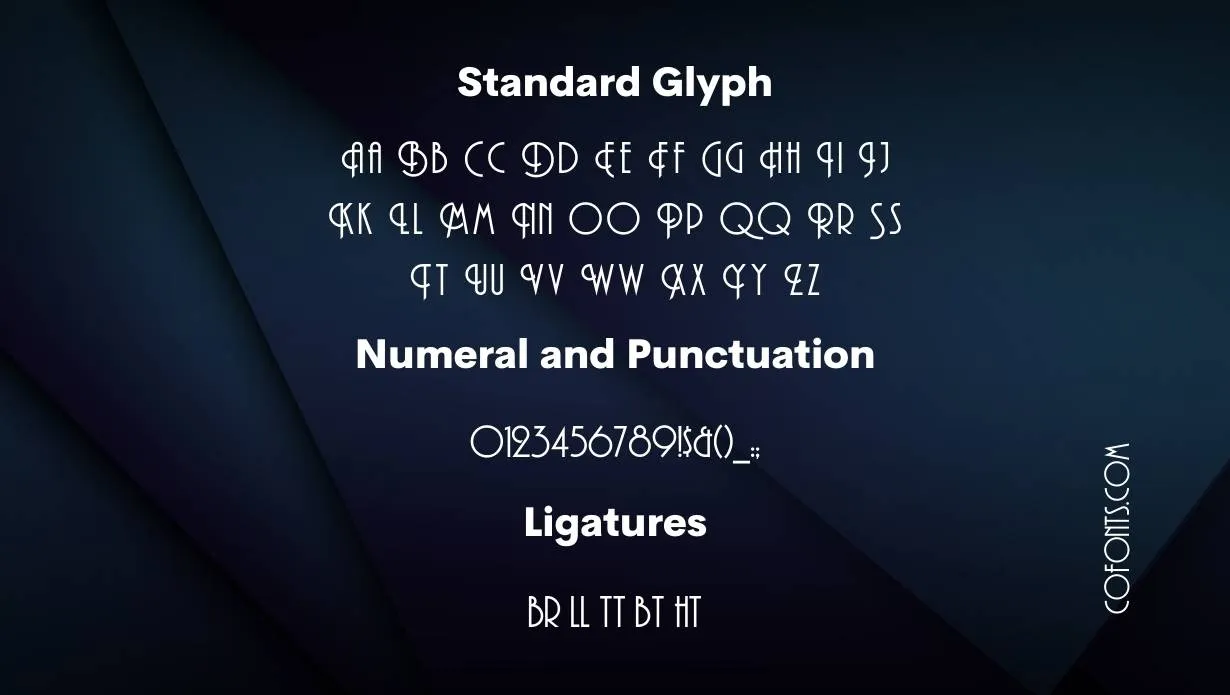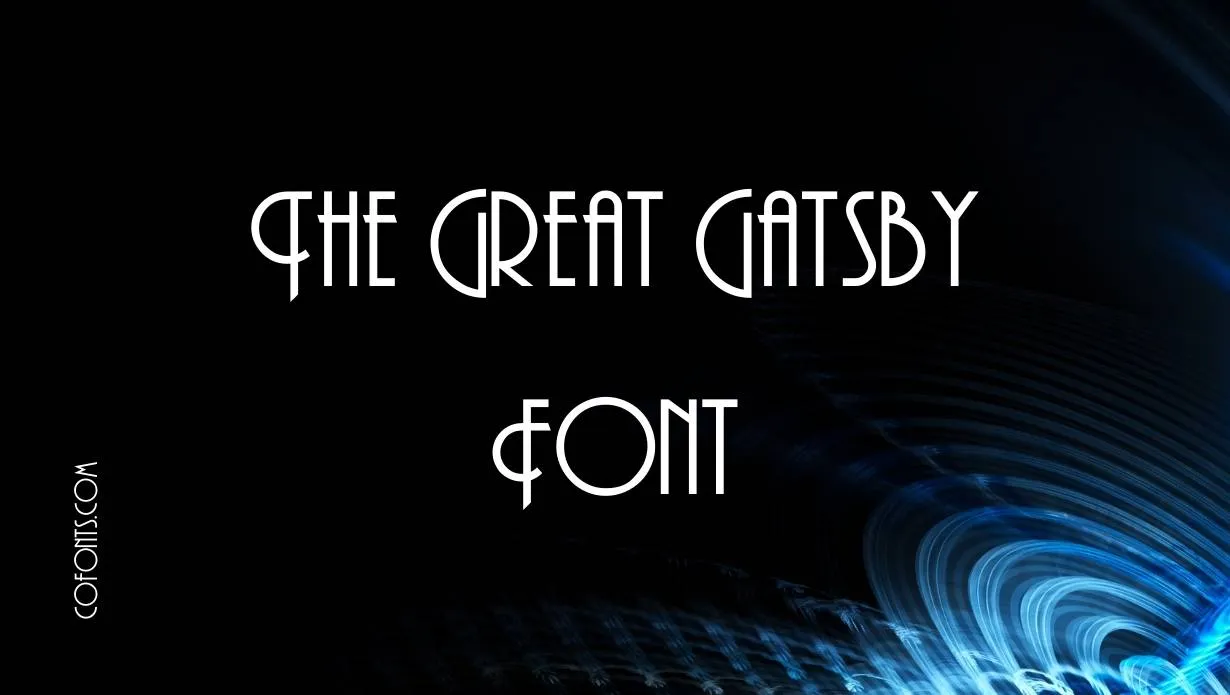
It too incorporates a set of optional cords, which includes its versatility. This typeface contains in-vogue glyphs and characters the design may be an incredible choice for any extent that needs a touch of class. Get it and include a stylish touch to the following extent. The Great Gatsby Font is created by Casady and Greene.
You’ll do your coursework introductions utilizing this typeface and make it more appealing to your instructors and classmates. The design can be used to create interesting covers, shop names, logos, and logos for shops, stores, and websites. This font is very close to the sansation font.
As well as branding projects, houseware designs, packaging, or even simply as an attractive text overlay on any background image, the typeface is suitable for all types of projects. The typeface also can create stunning logos and branding materials.
Usage of The Great Gatsby Font
This typeface moreover has both lowercase characters and capitalized characters, as well as a huge number of ligatures. This typeface helps creators when designing fields. You can use this typeface to create remarkable and eye-catching designs.
It is also appropriate for the creation of long and short paragraphs. Also appropriate for artwork and banner design. There are smaller capital letters in it. Using this typeface in combination with many other typefaces can truly assist produce an original and eye-catching style. You can easily compare this font with the noto sans font.
Projects that involve the font include emails and texts, webpages, emblems, and also more. It’s ideal for giving your work uniqueness as well as making it differentiate itself from other projects. Due to its eye-catching design, this typeface is commonly used in a lot of stylish projects. For developing attractive webpages, you can import this typeface into a CSS file.
Can I use Great Gatsby Font for poster designs?
There is no problem using this logo font for creative poster designs. Moreover, it can also be used to design posters for wall streets.
Are there any similarities to Great Gatsby Font?
This typeface is similar to a large number of fonts, but a Mesmerize Font is a great alternative.